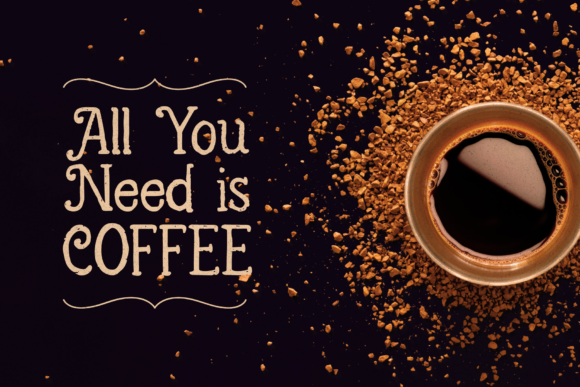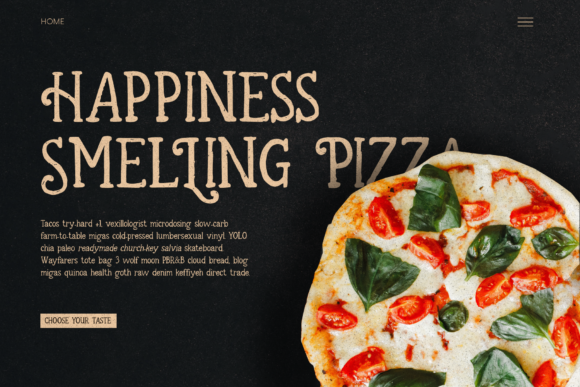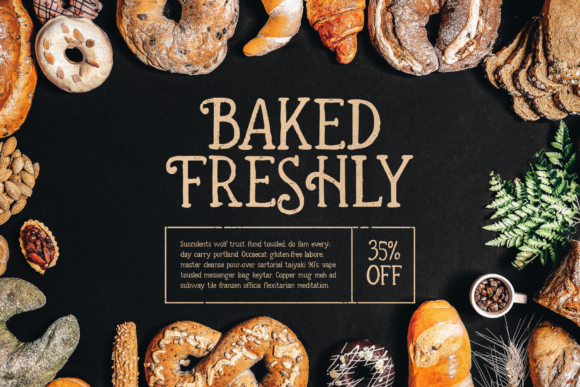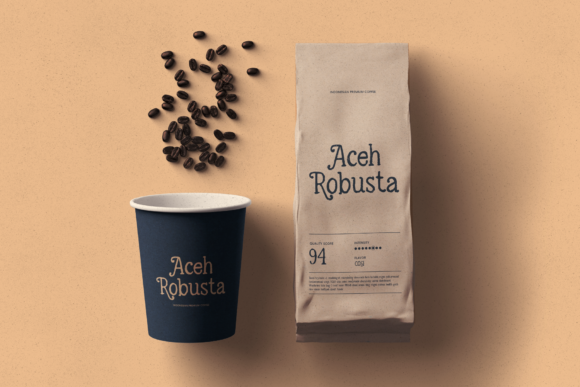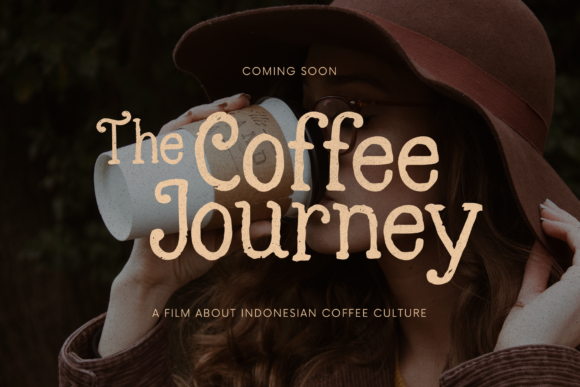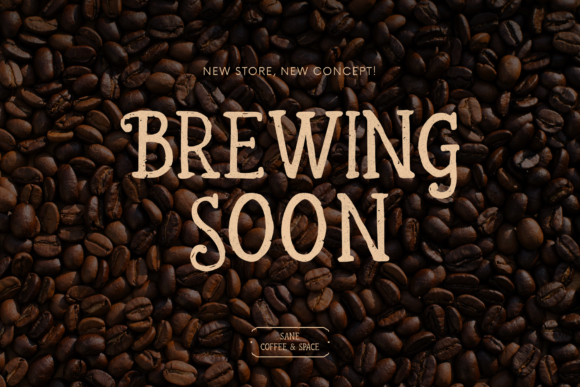
Introduction to Light Roast Font
There’s nothing quite like the thrill of finding the perfect font to elevate your creative project. It’s the moment when everything comes together, and your design takes on a life of its own. For designers, discovering a high-quality font that perfectly captures the essence of their vision is a treasure trove of inspiration. And that’s exactly what the Light Roast Font has to offer.
With its vintage styled and rough textured serif design, the Light Roast Font is a versatile and design resource that can be easily matched to a wide range of projects. Whether you’re working on a branding project, a blog design, or even a wedding invitation, this font is sure to make your creative ideas stand out.
Key Features of Light Roast Font
- High-quality, professional font design perfect for creative projects
- Light Roast Font is designed with a transparent background, allowing for seamless integration with various design elements
- Unique characteristics include a modern, clean aesthetic and a wide range of weights and styles to suit various design needs
Honest Review: Light Roast Font
I recently stumbled upon the Light Roast Font and was excited to give it a try. As a designer, I’m always on the lookout for high-quality design resources that can elevate my creative projects.
One of the things that stood out to me about the Light Roast Font is its transparent background, which makes it perfect for use on images and other design elements.
- High-quality design with a modern aesthetic ✨
- Perfect for use on websites, social media, and other digital platforms
- Only available in a limited number of font weights and styles ⚠️
- No bold or italic versions available
Overall, I’m impressed with the Light Roast Font and would recommend it to anyone looking for a high-quality, modern font for their design projects. It’s a great addition to any design resource library and is perfect for use in creative projects where a modern aesthetic is desired.
How to Use Light Roast Font
The Light Roast Font is a high-quality design resource ideal for creative projects that require a unique and modern look. With its transparent background and sleek design, this font is perfect for designers looking to elevate their work.
The Light Roast Font is ideal for a range of creative projects, including:
- Graphic design and branding.
- Web design and development.
- Marketing materials and advertising.
Is Light Roast Font suitable for high-quality print projects?
Yes, Light Roast Font is designed to be high-quality and suitable for print projects. It’s a high-resolution font that will look great on paper or any other printing material. However, please note that the final print quality also depends on the printing process and the settings used.